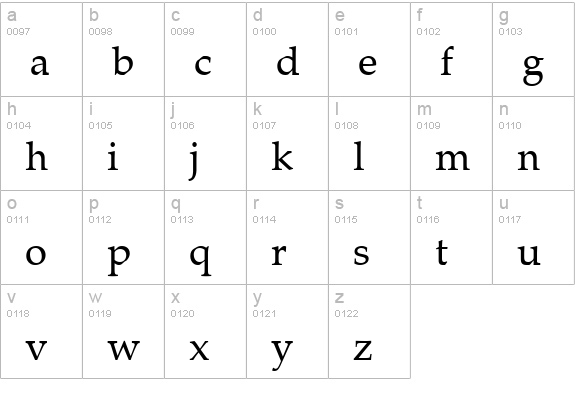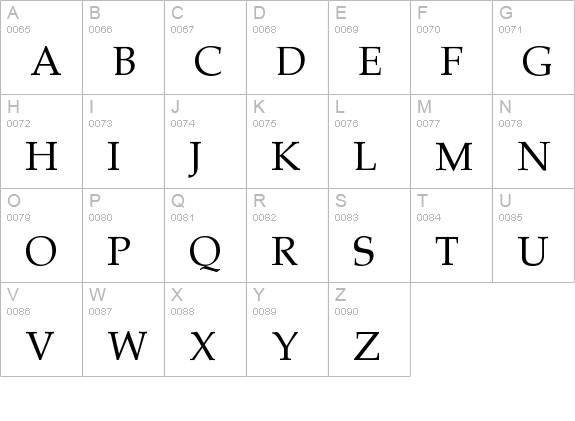
The Criteria SSi font is a versatile and modern typeface that exudes sophistication and elegance. With its clean lines and sleek design, this font is perfect for creating professional and eye-catching designs. The Criteria SSi font is available in a variety of weights and styles, making it suitable for a wide range of design applications. Best of all, the Criteria SSi font is completely free to download at FontsMarket.com. This means that you can easily access this stylish font and incorporate it into your projects without any cost. Whether you are designing a logo, website, or print materials, the Criteria SSi font is sure to elevate your designs and leave a lasting impression. Download this font today and take your designs to the next level!